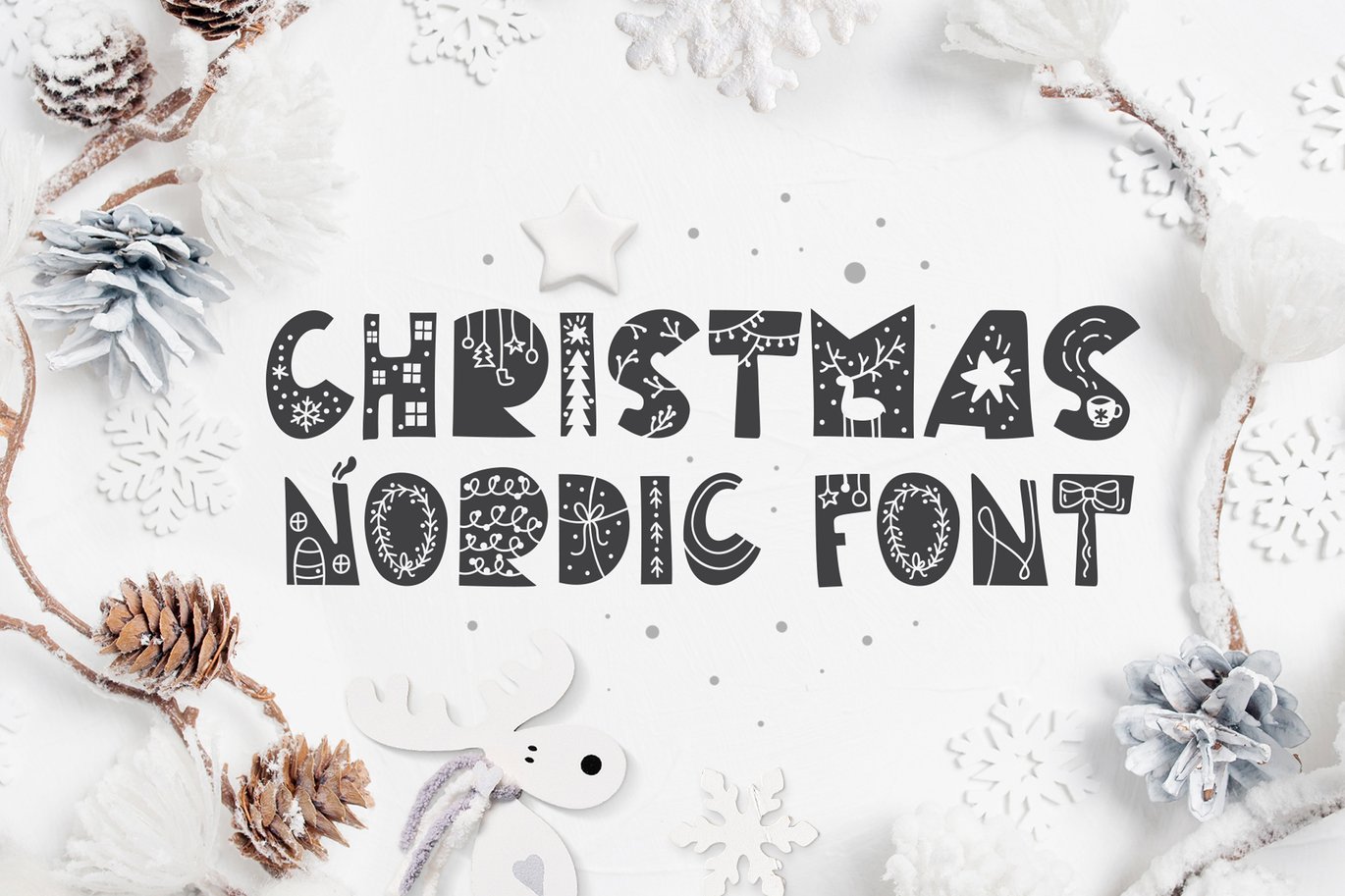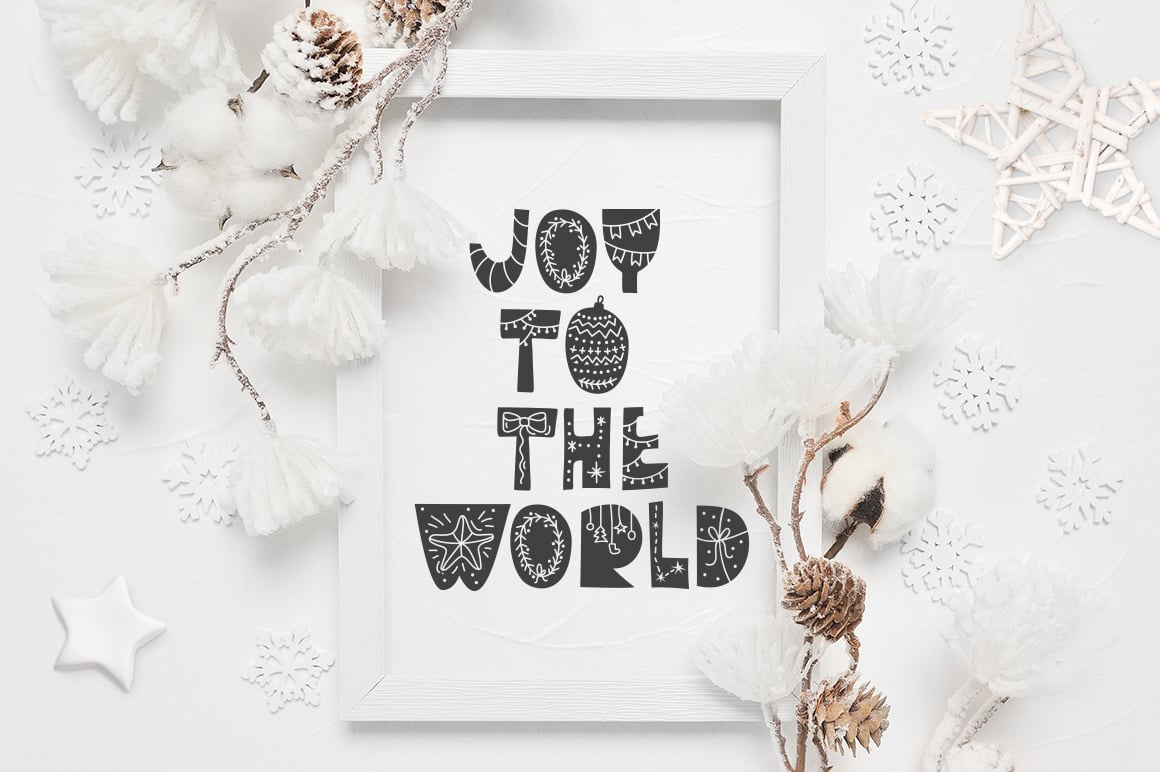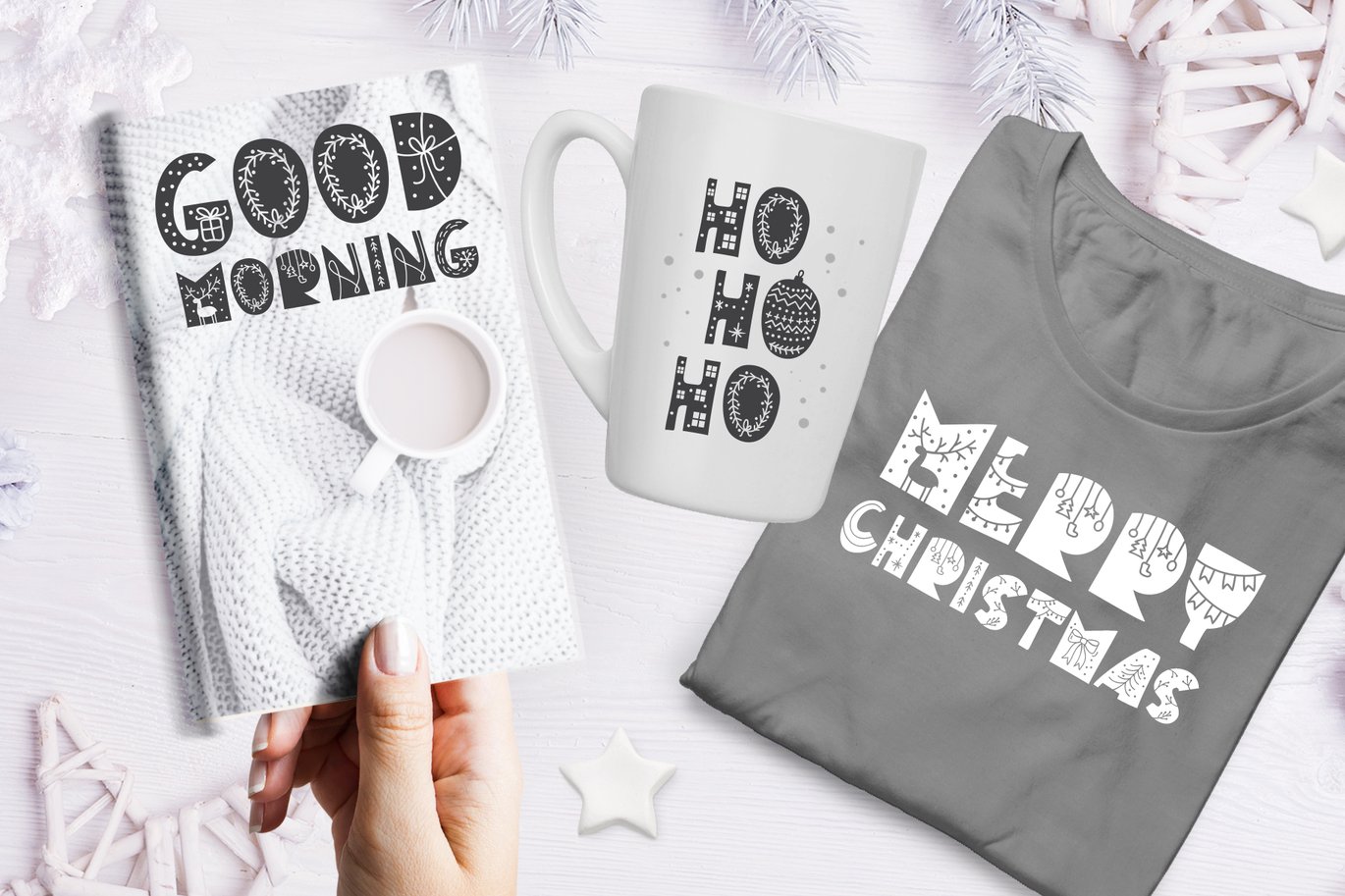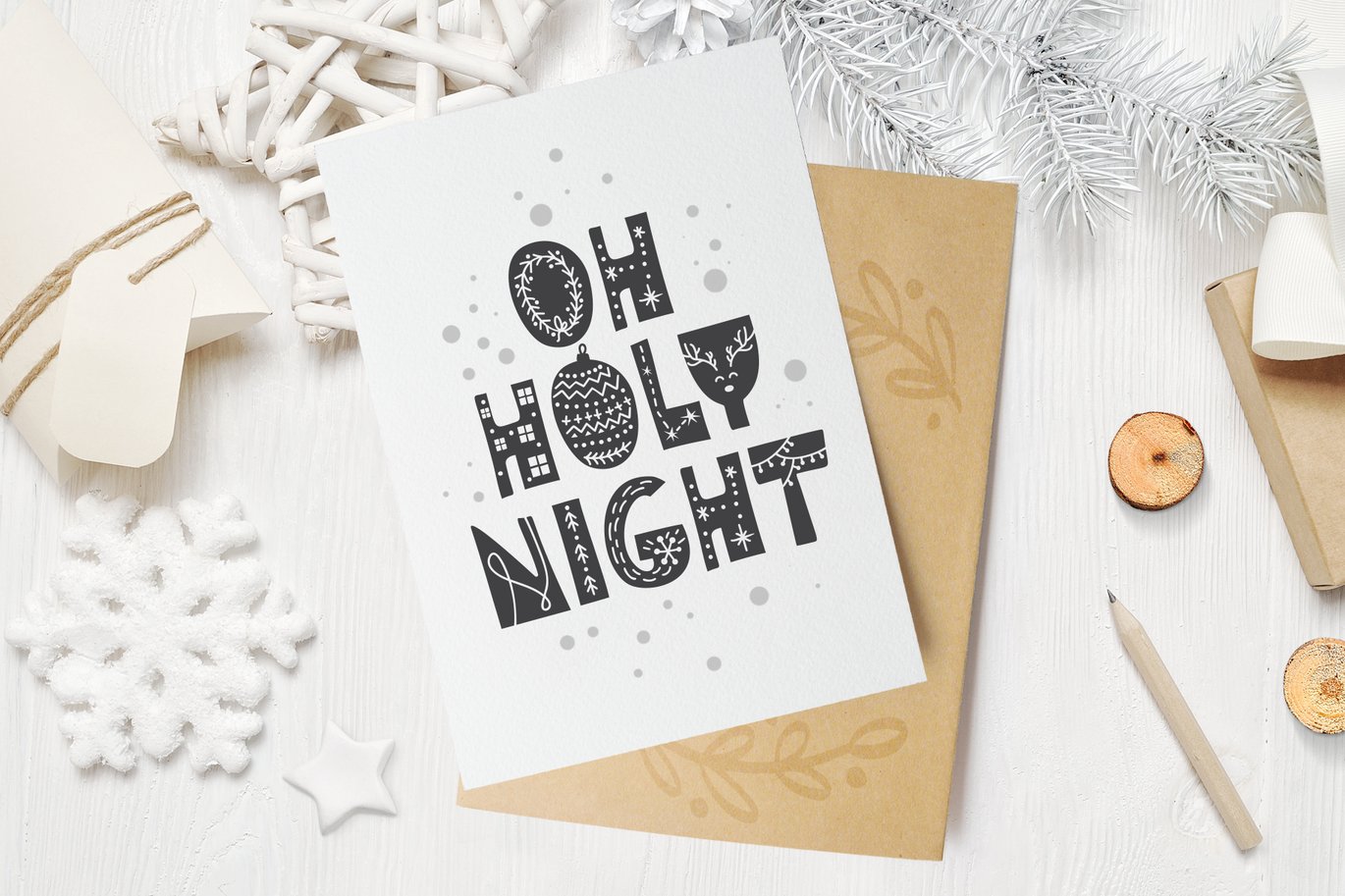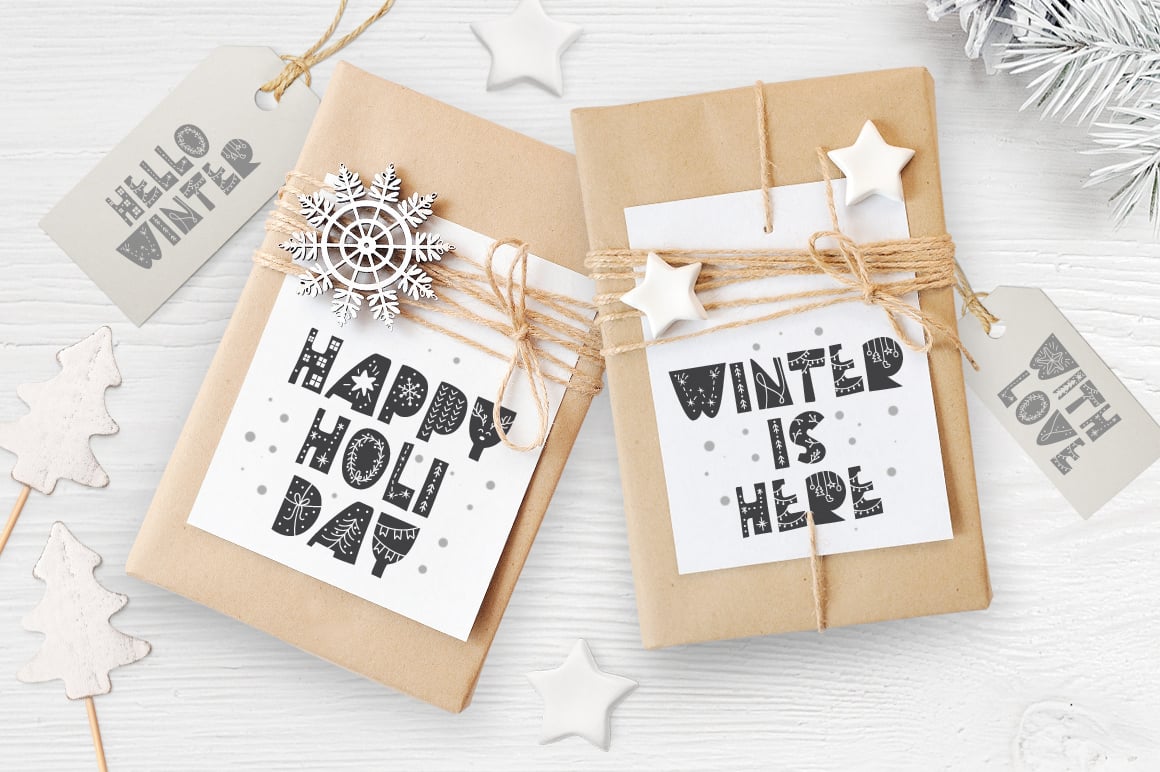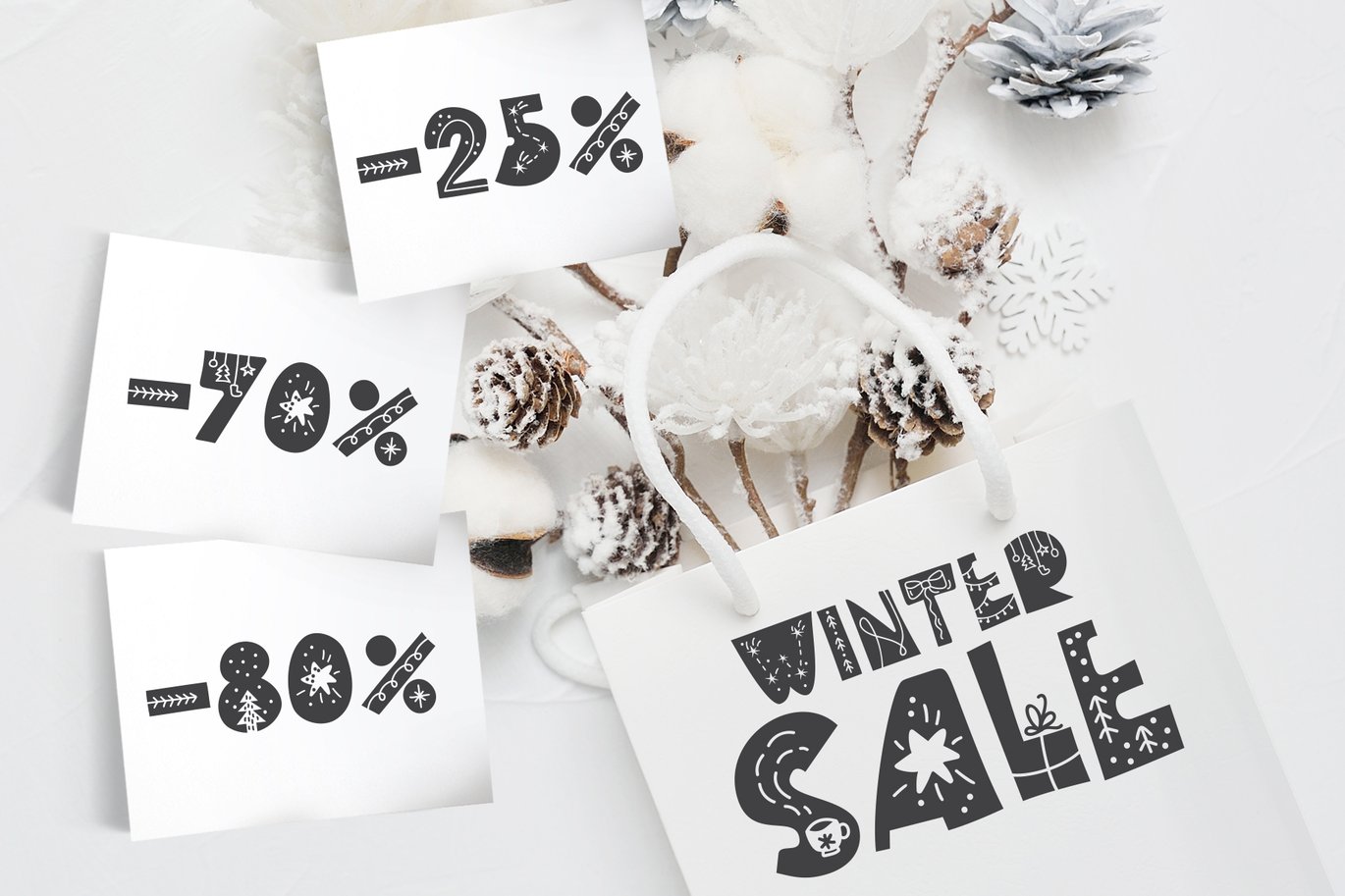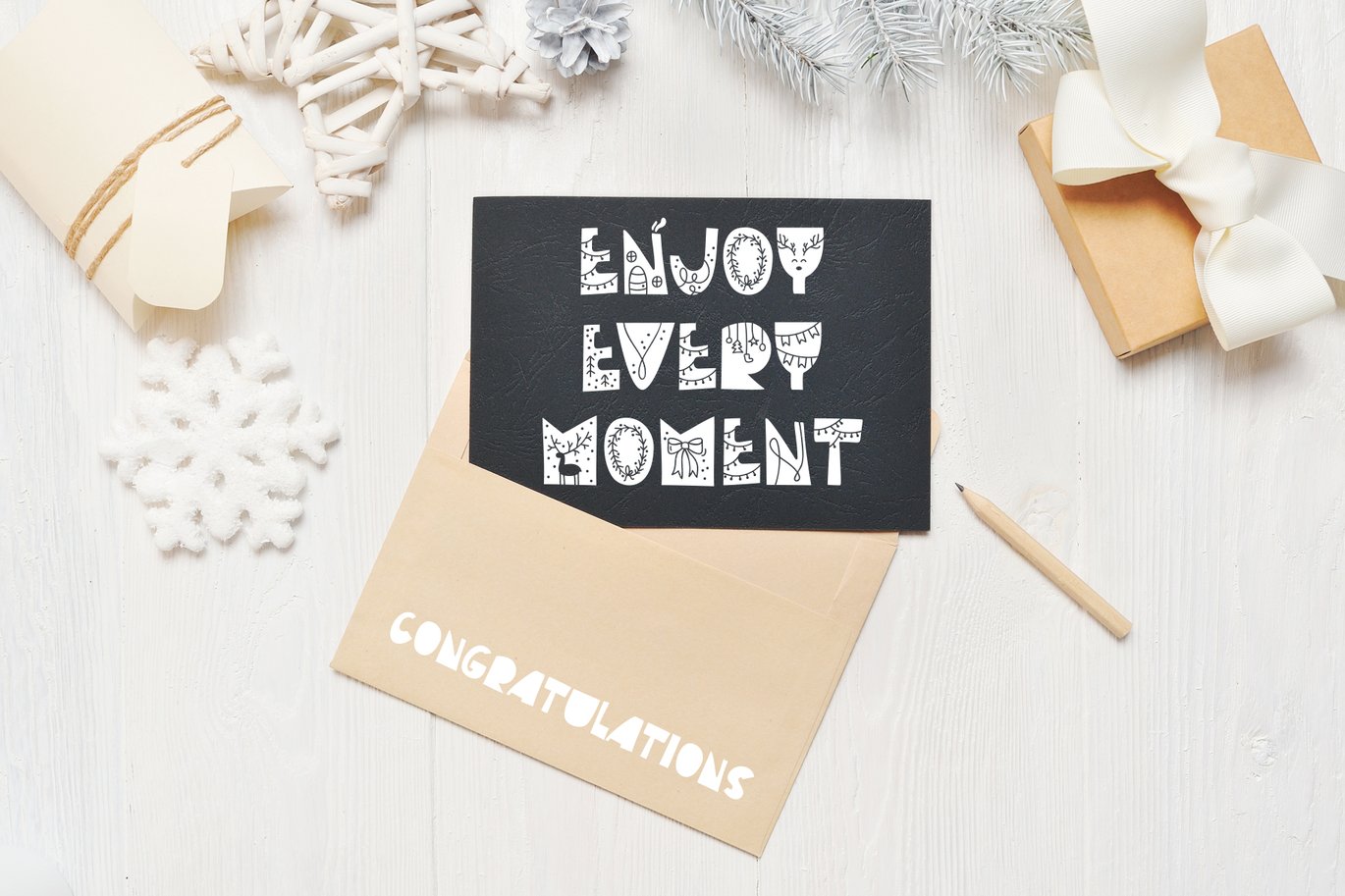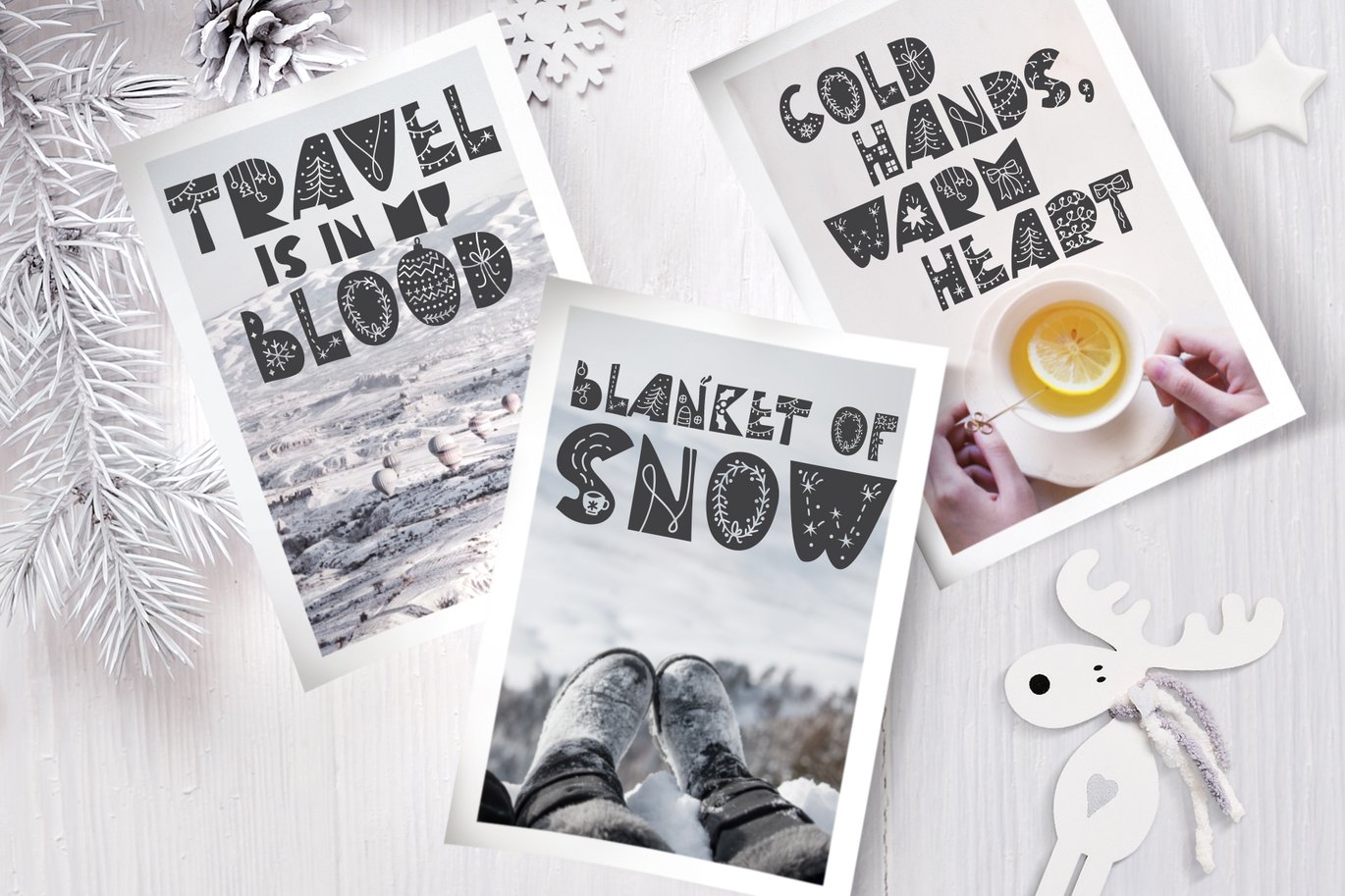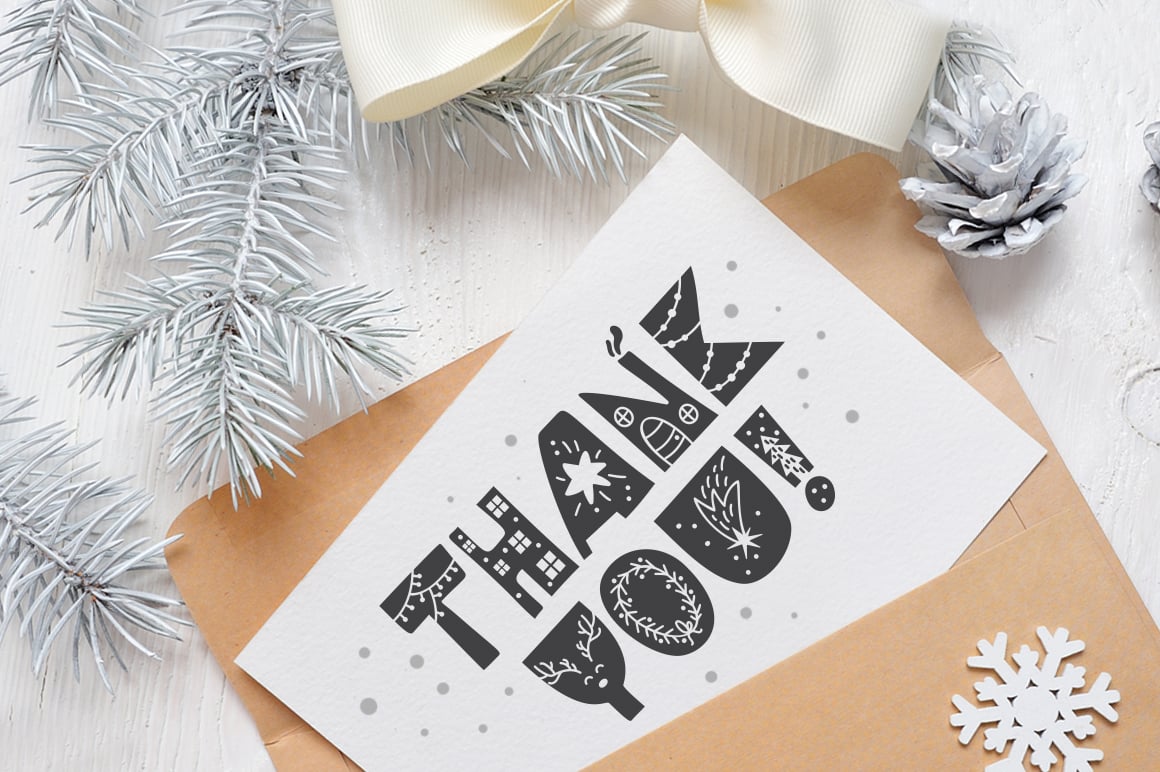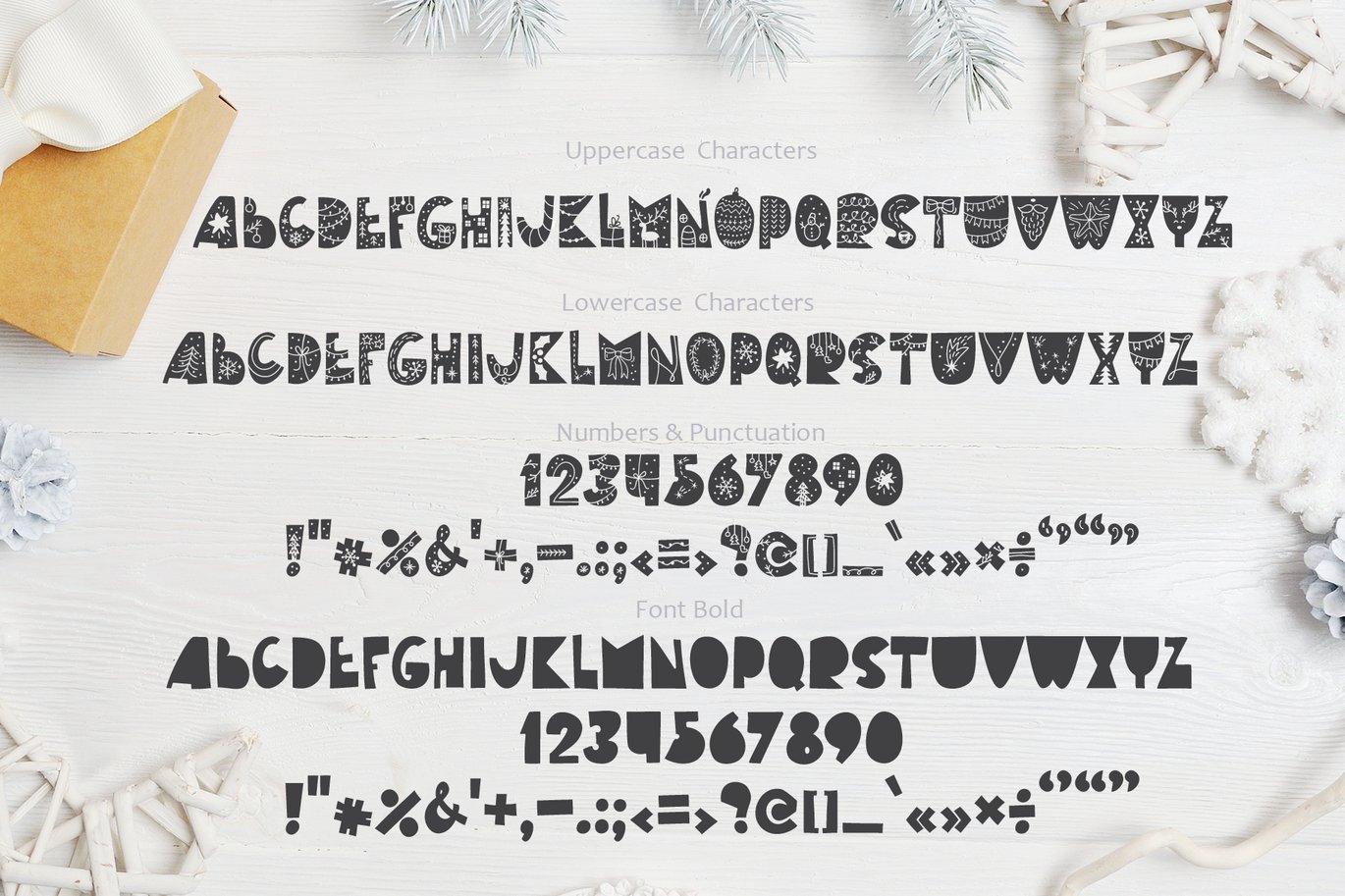
Christmas Nordic Font
Winter handmade Christmas Nordic Font is Hand Drawn modern display font.
Christmas Hand Drawn Font is beautiful instrument for designers, blogers and everybody who loves doodle scandinavian or hygge style.
ABOUT FONT
This font is regular and bold style. In a regular, uppercase and lowercase characters are different (you can try). In bold style, uppercase and lowercase are the same. And bold style is without inner drawings.
On letters hand drawn stars, fir trees, deers, snowflakes, Santa Claus, garland, christmas toy balls, cap of coffee, gift boxes, windows, tea, house, snow, bow, comet, branches, beard, snowman.
PERFECT FOR
Titles for kid`s book, scrapbook, logo, icon, phrases or quotes for winter greeting cards (Christmas or New Year holidays), photo overlay, short phrases, childrenβs book, gift shops tag, presentation in social media Pinterest, Instagram, Facebook or other.